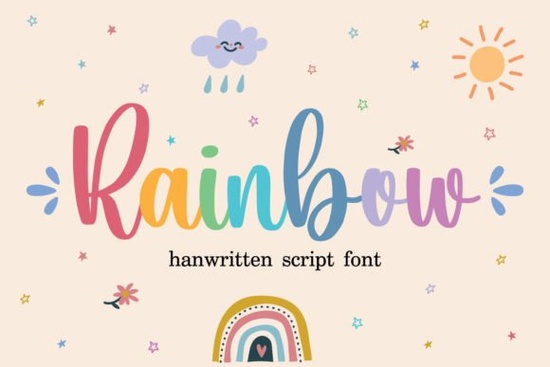
When you are looking for a typeface that feels personal and warm, a handwritten script is often the best choice. The Rainbow Font fits this description perfectly. It is designed to be lovely and sweet, making it suitable for projects that need a gentle touch. Whether you are creating a logo for a boutique or writing a quote for social media, this font adds a human element that rigid typefaces cannot match. It works well for designers, crafters, and small business owners who want their branding to feel approachable.
What makes this script font suitable for branding?
Branding requires consistency and personality. A script font like this one helps establish an identity that feels authentic. Because the strokes are fluid, it mimics natural handwriting. This is useful for industries like beauty, wellness, or handmade goods where trust and personal connection matter. You can use it for watermarks on photos, packaging labels, or even website headers. If you want to see how other playful designs compare, you might browse this script category on our site. Comparing different styles helps you decide which weight and flow match your brand voice best.
Another option to consider is the Letterland font. It offers a different vibe but stays within the handwritten family. Testing multiple options ensures you do not settle for the first thing you see. The goal is to find something readable yet distinctive.
How do you access the extra glyphs and swashes?
One of the technical features you should know about is PUA encoding. This font is PUA encoded, which means you can easily access all of the glyphs, swashes, and ligatures without needing special software tricks. In simpler terms, you can type specific characters to reveal alternate versions of letters. This allows you to customize words so they do not look repetitive. For example, you can change the tail on a "y" or the loop on an "e" to make the text look more organic.
Understanding these features saves time during the design process. If you are interested in other typefaces with similar technical capabilities, you could explore this collection. Many modern script fonts include these options to give designers more flexibility. The Shina Qatline font is another example that provides extensive glyph access. Having these tools means you can create unique logos without drawing custom lettering from scratch.
Where else can you find similar handwritten styles?
Sometimes you need a script that feels more formal or specific to an event. For weddings or invitations, elegance is key. You might want to look at signature styles that are tailored for ceremonies. These fonts often have higher contrast and sharper edges. The The Wedding Signature font is designed specifically for this purpose. It pairs well with floral elements or gold foil textures.
On the other hand, if you are designing for a lifestyle brand or a cafe, you might prefer something relaxed. You can check out west coast styles that evoke a sunny, laid-back feeling. The California font captures this vibe effectively. It is less formal and works well on t-shirts or tote bags. Choosing the right mood depends on who your audience is and where they will see your design.
What projects work best with this typeface?
This typeface is versatile enough for both print and digital use. It is the best choice for creating eye-catching logos, branding, and quotes. For print-on-demand sellers, it works well on mugs, posters, and apparel. The strokes are thick enough to remain visible when printed on fabric. For crafters, it is ideal for vinyl cutting machines. Since the lines are continuous, weeding the vinyl is usually straightforward.
Seasonal projects also benefit from script fonts. During the holidays, you might want to find festive typography that matches the spirit of the season. The Christmas font options often include decorative swirls or holly elements. However, a standard script like Rainbow can be used year-round. You can pair it with a simple sans-serif font for body text to ensure readability. Keep the script for headlines and short phrases where it can shine.
Quick Tips for Using Script Fonts
- Check kerning: Adjust the space between letters so they connect naturally.
- Use swashes: Enable alternate glyphs to avoid repeating the same letter shape.
- Contrast matters: Pair thick scripts with thin, clean fonts for balance.
- Test readability: Make sure your design is legible from a distance.
- License check: Always verify if the font allows commercial use for your products.